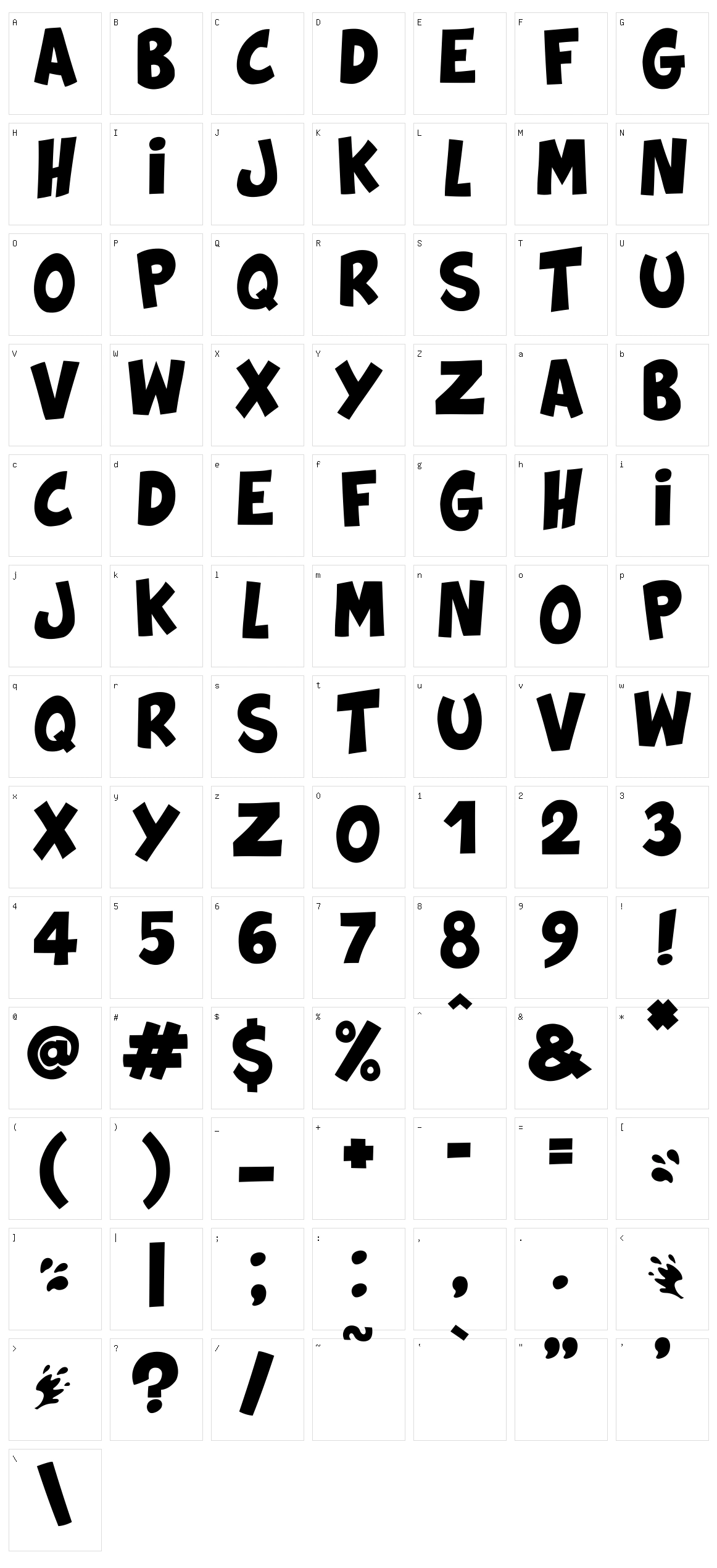
The free font Splatch is carefully designed by imagex, showcasing a thoughtful balance of creativity and usability and falls under the Cartoon font style. When you download the ZIP file, it contains only 11.73 KB of font files, making it lightweight and quick to download. Please review the license details below to understand permitted usage and distribution rights. If license information is not available, we recommend using this font for personal projects only or contacting the author directly for commercial usage permissions.